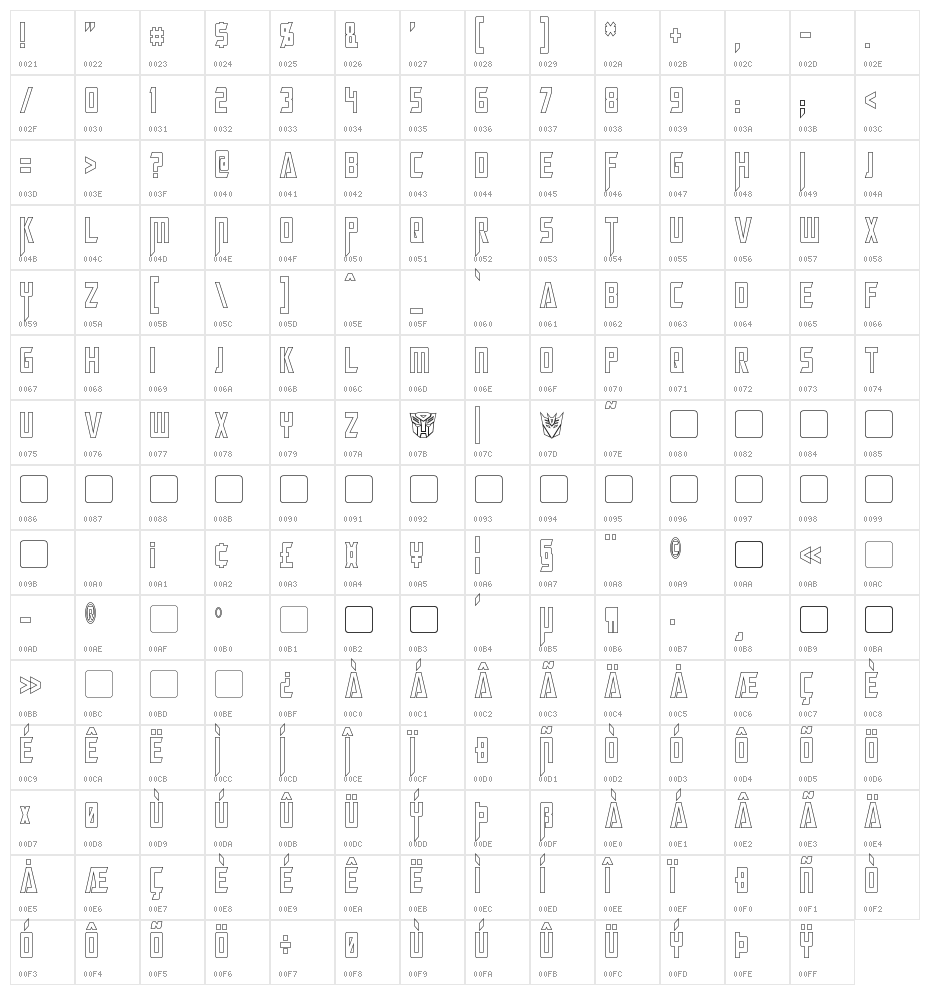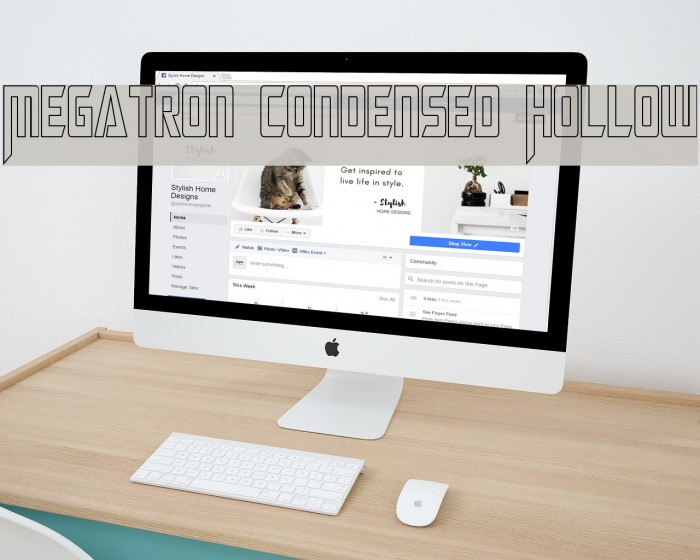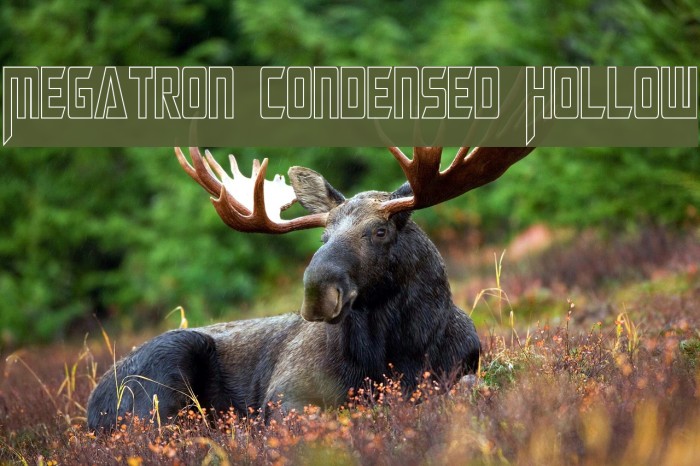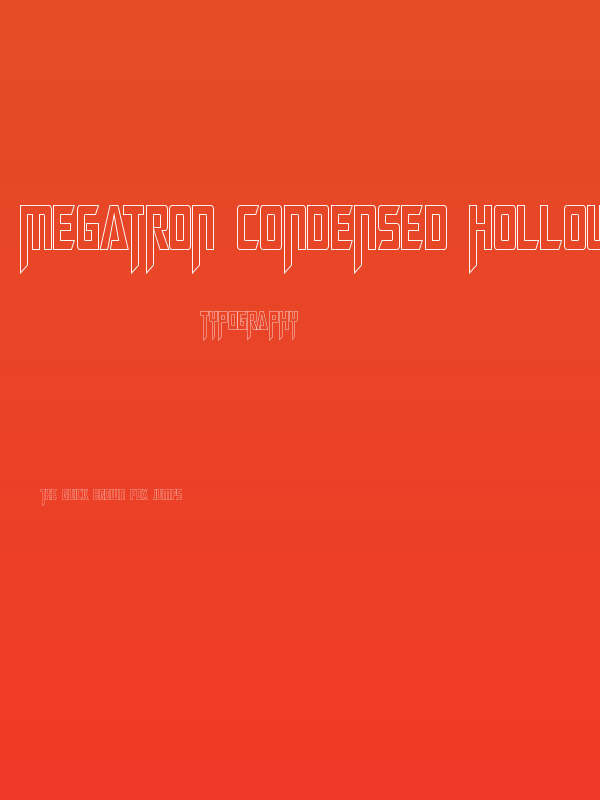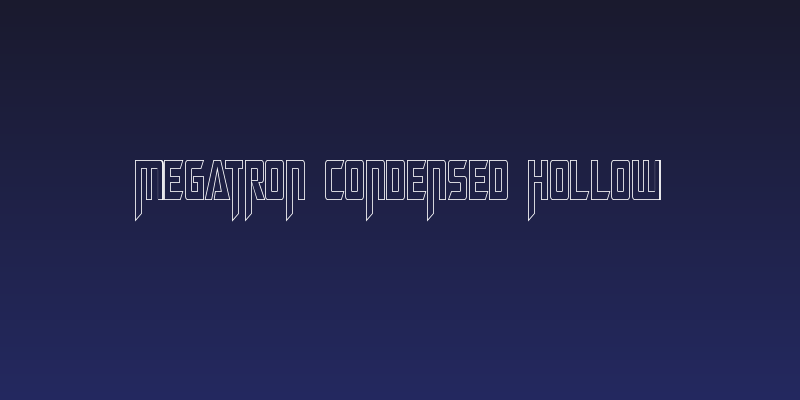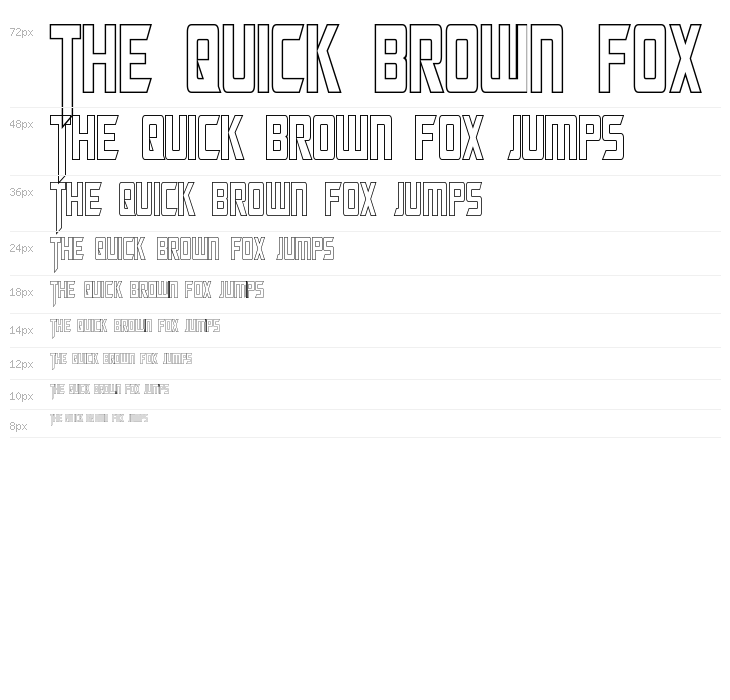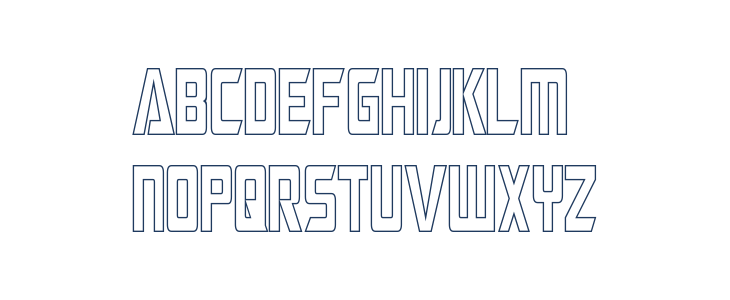
Megatron Condensed Hollow Font
Megatron Condensed Hollow Description
This font features a futuristic and geometric design with hollow characters, giving it a unique and modern appearance. The letters are condensed, creating a compact look that is both striking and efficient in space usage. The angular and sharp edges contribute to a dynamic and bold aesthetic, making it ideal for attention-grabbing designs. The hollow nature of the characters adds an element of intrigue and sophistication, allowing for creative layering and background integration. Its distinct style is perfect for projects that require a modern and edgy feel.
| Proposed Projects | Ideal for sci-fi themed designs, modern posters, tech branding, and innovative product packaging. |